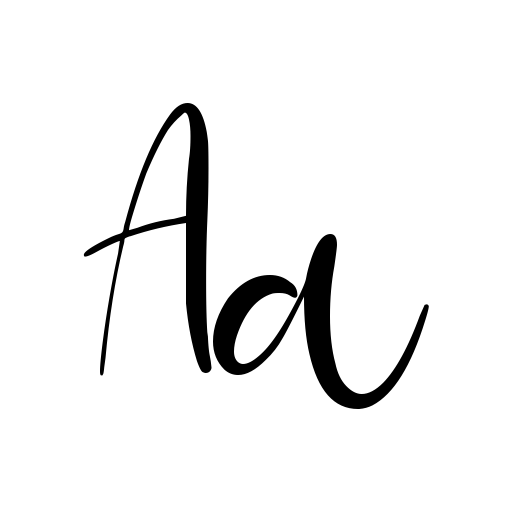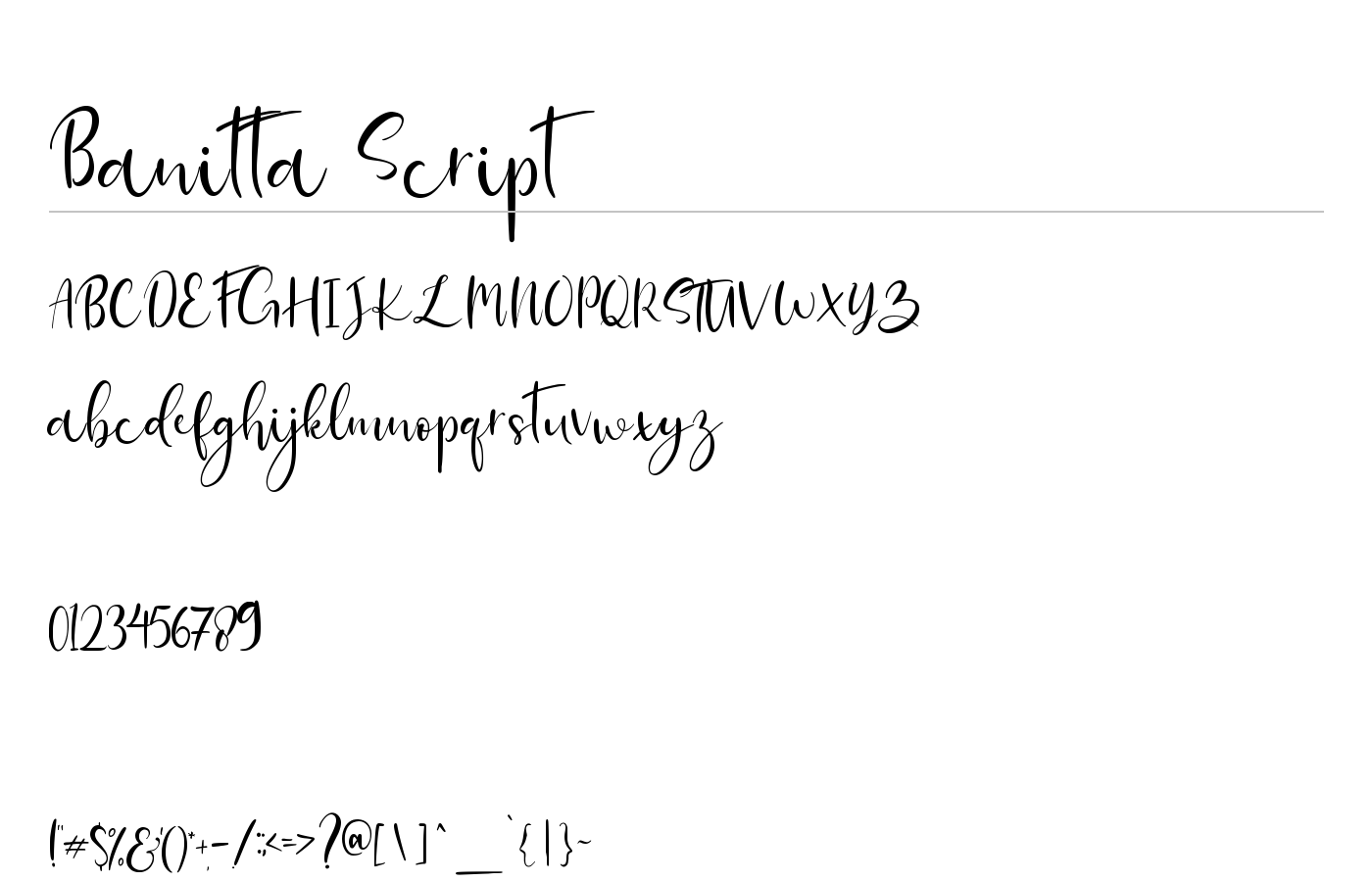
Banitta Script is a delicate and elegant handwritten font with a light, airy feel. Its smooth, flowing strokes and charming irregularities give it a personal and sophisticated touch, making it perfect for invitations, branding, and feminine or artistic designs that seek a warm yet refined presentation. This font works especially well in display settings where its graceful style can shine, such as logos, greeting cards, and fashion-related projects.
Banitta Script Font
About Banitta Script Font
| Font family | Banitta Script Font |